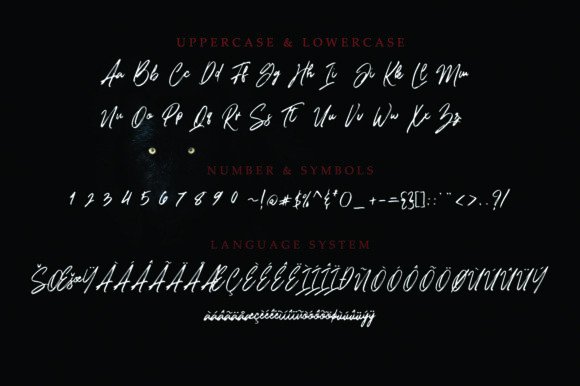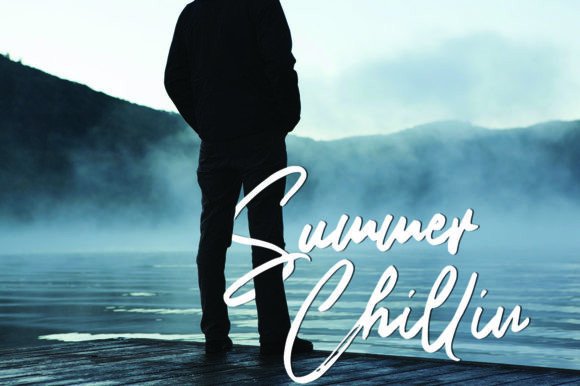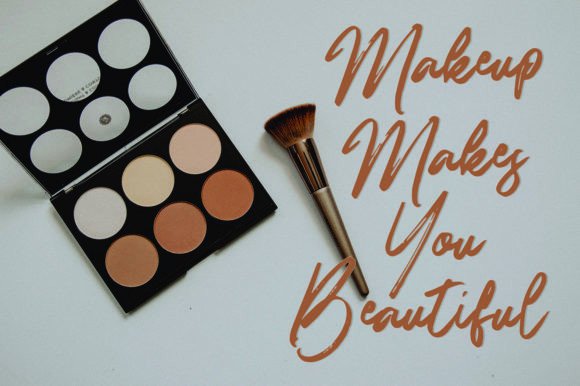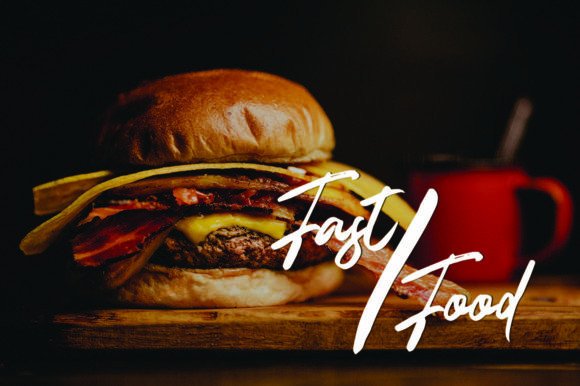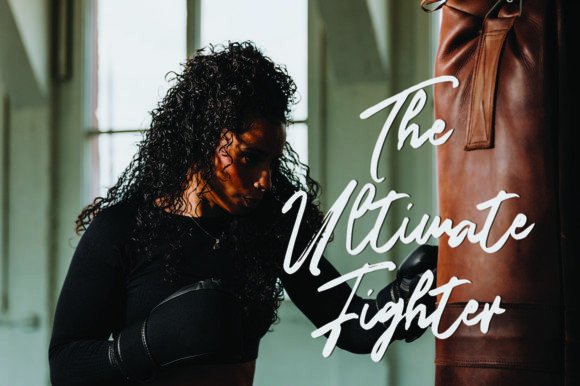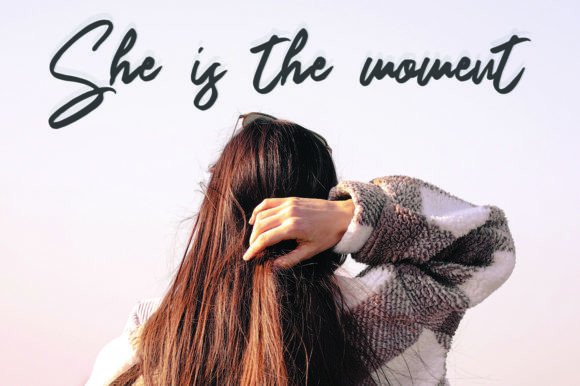
Introducing Brushfox Font: The Perfect Handwritten Touch for Your Designs
Are you looking for a font that adds a personal touch to your designs? Look no further than Brushfox Font! This beautiful brush script is written in a relaxed and fast way, making it perfect for a variety of design projects. In this article, we’ll dive into the features and benefits of Brushfox Font, and explore how it can elevate your designs.
What is Brushfox Font?
Brushfox Font is a stunning brush script font that is designed to give your designs a handwritten touch. It’s perfect for wedding invitations, thank you cards, quotes, greeting cards, logos, business cards, and any other design that needs a personal and elegant feel. The font is crafted in a relaxed and fast way, giving it a natural and effortless look that’s sure to impress.
Key Features of Brushfox Font
- Relaxed and Fast Writing Style: Brushfox Font is written in a relaxed and fast way, making it perfect for designs that need a personal touch.
- PUA Encoded: Brushfox Font is PUA encoded, which means you can access all of the glyphs and swashes with ease. This makes it easy to customize your designs and add unique touches.
- Handwritten Touch: Brushfox Font has a beautiful handwritten touch that’s perfect for designs that need a personal and elegant feel.
- Versatile: Brushfox Font is versatile and can be used for a variety of design projects, including wedding invitations, thank you cards, quotes, greeting cards, logos, and business cards.
Benefits of Using Brushfox Font
There are many benefits to using Brushfox Font in your designs. Here are a few:
- Adds a Personal Touch: Brushfox Font adds a personal touch to your designs, making them stand out from the crowd.
- Elegant and Sophisticated: Brushfox Font has an elegant and sophisticated look that’s perfect for designs that need a high-end feel.
- Easy to Use: Brushfox Font is easy to use and can be accessed with ease, thanks to its PUA encoding.
- Customizable: Brushfox Font is customizable, allowing you to add unique touches and glyphs to your designs.
How to Use Brushfox Font in Your Designs
Using Brushfox Font in your designs is easy! Here are a few tips:
- Pair it with Other Fonts: Brushfox Font pairs well with other fonts, so don’t be afraid to experiment with different combinations.
- Use it for Headlines and Titles: Brushfox Font is perfect for headlines and titles, where its elegant and sophisticated look can shine.
- Add Swashes and Glyphs: Brushfox Font’s PUA encoding makes it easy to add swashes and glyphs to your designs, giving them a unique touch.
- Experiment with Colors: Brushfox Font looks great in a variety of colors, so don’t be afraid to experiment and find the perfect hue for your design.
Who Can Benefit from Brushfox Font?
Brushfox Font is perfect for a variety of designers and crafters, including:
- Graphic Designers: Brushfox Font is perfect for graphic designers who need a font that adds a personal touch to their designs.
- Wedding Designers: Brushfox Font is perfect for wedding designers who need a font that looks elegant and sophisticated.
- Crafters: Brushfox Font is perfect for crafters who need a font that adds a personal touch to their DIY projects.
- Stationery Designers: Brushfox Font is perfect for stationery designers who need a font that looks elegant and sophisticated.